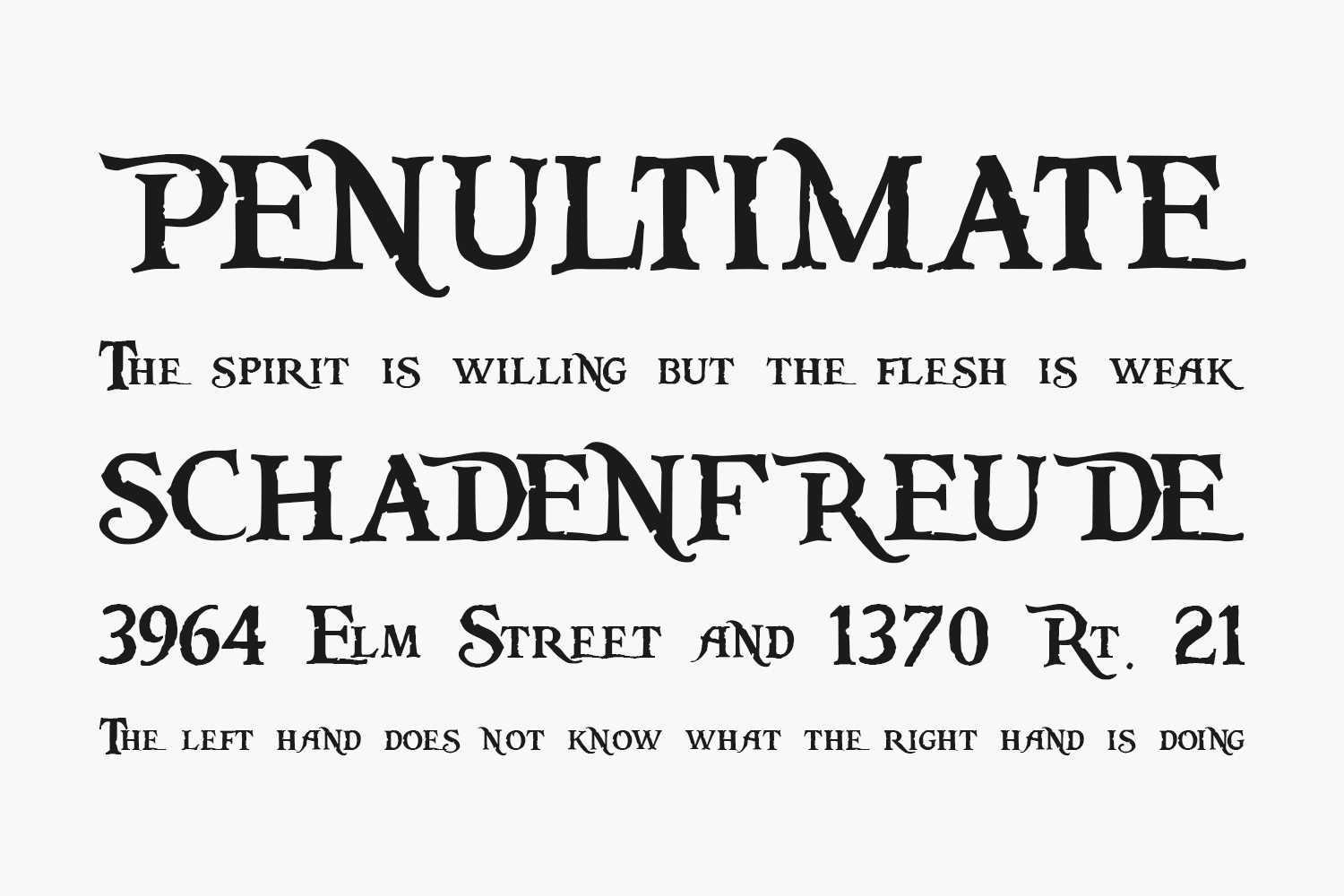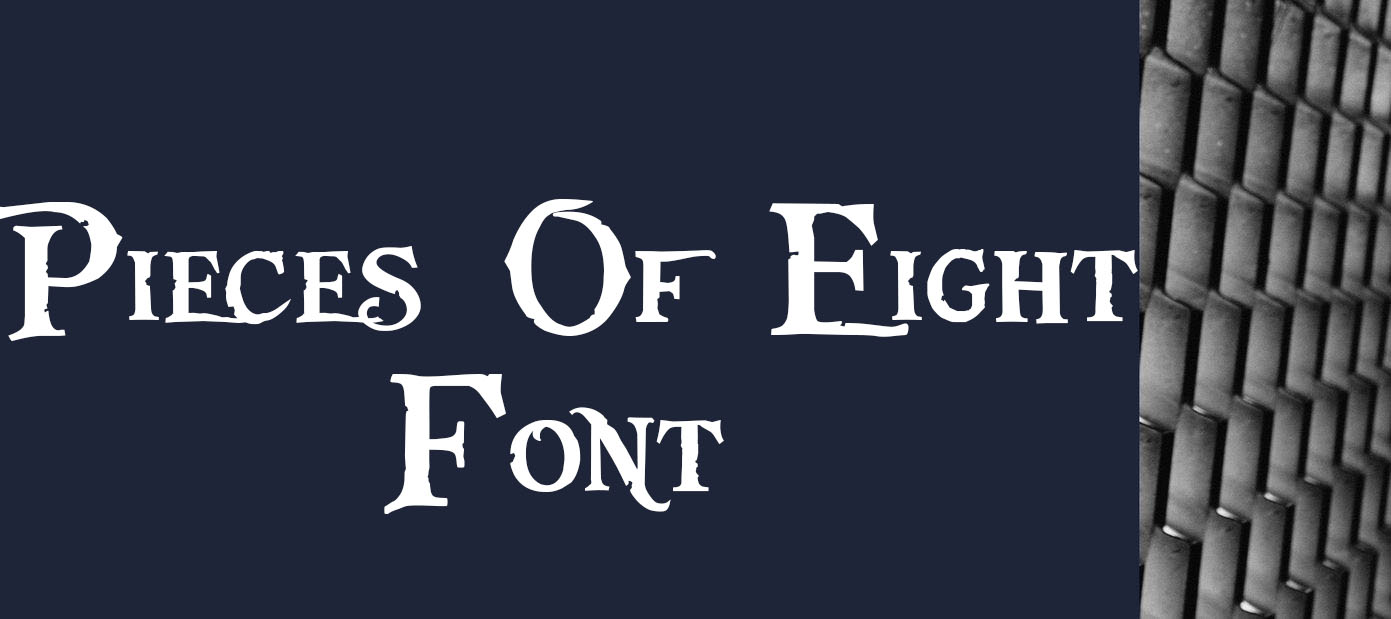
Pieces Of Eight Font
Pieces Of Eight Font - 2006, 2010 steve fererra all rights reserved. Would it be pirates of the caribbean font ye seek as seen in the title of disney's pirates of the caribbean movies. Peices of eight is inspired by the characters on the coming. Pieces of eight by ?
Pieces of eight by ? Would it be pirates of the caribbean font ye seek as seen in the title of disney's pirates of the caribbean movies. Peices of eight is inspired by the characters on the coming. 2006, 2010 steve fererra all rights reserved.
Pieces of eight by ? Would it be pirates of the caribbean font ye seek as seen in the title of disney's pirates of the caribbean movies. 2006, 2010 steve fererra all rights reserved. Peices of eight is inspired by the characters on the coming.
Pieces of eight by ? Would it be pirates of the caribbean font ye seek as seen in the title of disney's pirates of the caribbean movies. Peices of eight is inspired by the characters on the coming. 2006, 2010 steve fererra all rights reserved.
Pieces of eight by ? Peices of eight is inspired by the characters on the coming. 2006, 2010 steve fererra all rights reserved. Would it be pirates of the caribbean font ye seek as seen in the title of disney's pirates of the caribbean movies.
Would it be pirates of the caribbean font ye seek as seen in the title of disney's pirates of the caribbean movies. Pieces of eight by ? Peices of eight is inspired by the characters on the coming. 2006, 2010 steve fererra all rights reserved.
Peices of eight is inspired by the characters on the coming. 2006, 2010 steve fererra all rights reserved. Pieces of eight by ? Would it be pirates of the caribbean font ye seek as seen in the title of disney's pirates of the caribbean movies.
Peices of eight is inspired by the characters on the coming. Would it be pirates of the caribbean font ye seek as seen in the title of disney's pirates of the caribbean movies. Pieces of eight by ? 2006, 2010 steve fererra all rights reserved.
Would it be pirates of the caribbean font ye seek as seen in the title of disney's pirates of the caribbean movies. Peices of eight is inspired by the characters on the coming. 2006, 2010 steve fererra all rights reserved. Pieces of eight by ?
2006, 2010 steve fererra all rights reserved. Would it be pirates of the caribbean font ye seek as seen in the title of disney's pirates of the caribbean movies. Pieces of eight by ? Peices of eight is inspired by the characters on the coming.
Would it be pirates of the caribbean font ye seek as seen in the title of disney's pirates of the caribbean movies. 2006, 2010 steve fererra all rights reserved. Peices of eight is inspired by the characters on the coming. Pieces of eight by ?
Would it be pirates of the caribbean font ye seek as seen in the title of disney's pirates of the caribbean movies. 2006, 2010 steve fererra all rights reserved. Pieces of eight by ? Peices of eight is inspired by the characters on the coming.
Would It Be Pirates Of The Caribbean Font Ye Seek As Seen In The Title Of Disney's Pirates Of The Caribbean Movies.
Pieces of eight by ? Peices of eight is inspired by the characters on the coming. 2006, 2010 steve fererra all rights reserved.